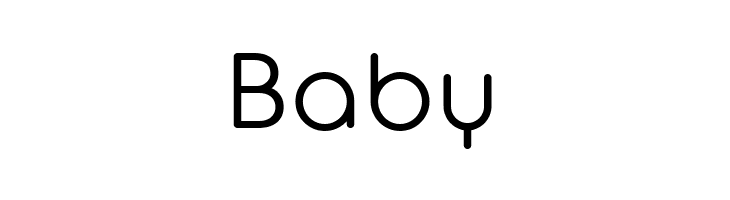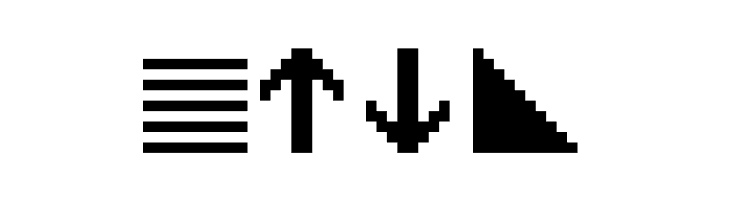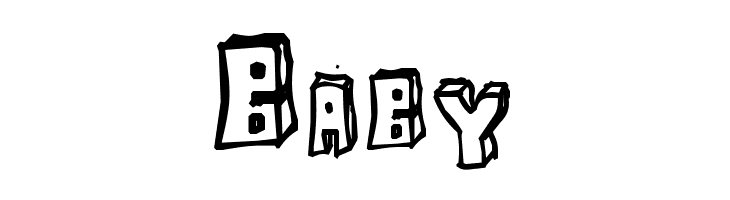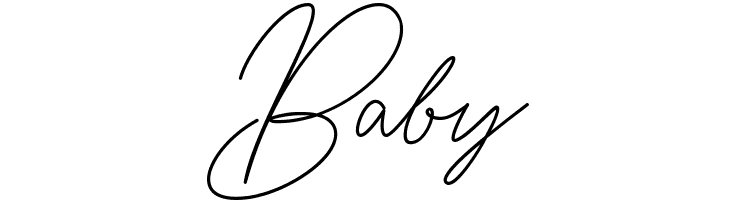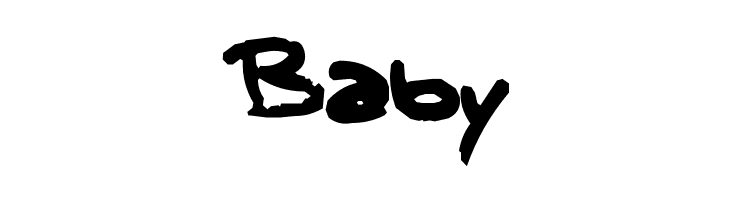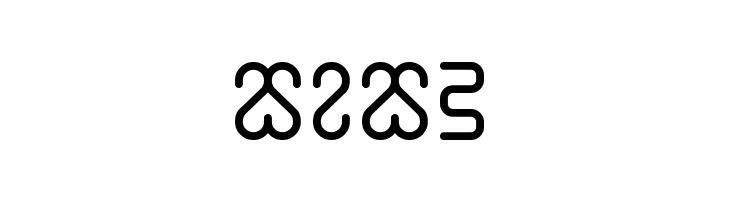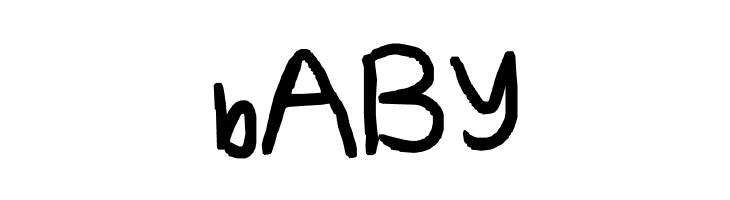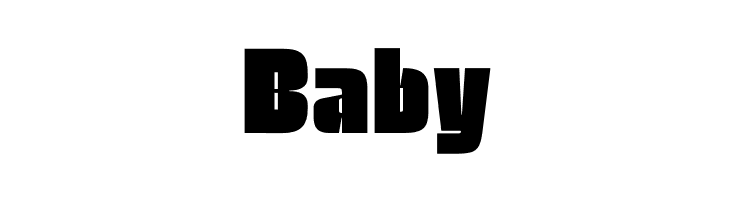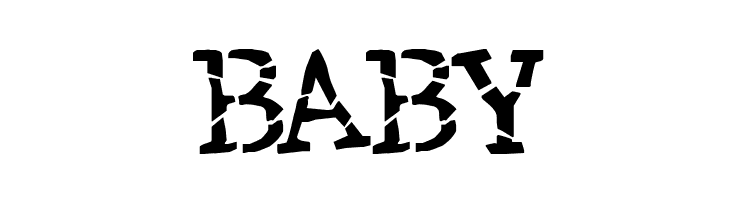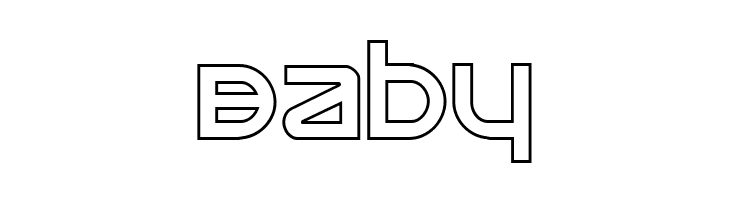
A playful, hand-drawn font with bold, irregular strokes and a dynamic style.
A bold, geometric font with an industrial, stencil-like design.
A futuristic, angular font with a bold, dynamic slant.
A futuristic, angular font with sharp edges and geometric shapes.
An elegant and flowing script font with refined cursive letters.
A decorative, serpentine font with bold, flowing curves.
A bold, decorative font with interconnected loops and curves, ideal for creative display use.
A bold, high-contrast font with a modern and unique design.
A dynamic and flowing script font with elegant cursive letterforms.
A modern, geometric sans-serif font with a clean and minimalistic style.
A modern, rounded font with a clean and approachable style.
A modern, geometric font with clean lines and balanced characters.
A modern, geometric outline font with sharp, angular shapes.
A geometric, modern font with angular and rounded elements, offering a futuristic and bold appearance.
A bold, stencil-like font with a rugged, industrial design.
A bold, modern font with a stencil-like, industrial design.
A bold, blocky font with high contrast and strong visual impact.
A playful, elegant handwritten font with modern loops and smooth curves.
A geometric, modern font with clean lines and a structured appearance.
A bold, playful script font with flowing, dynamic letterforms.